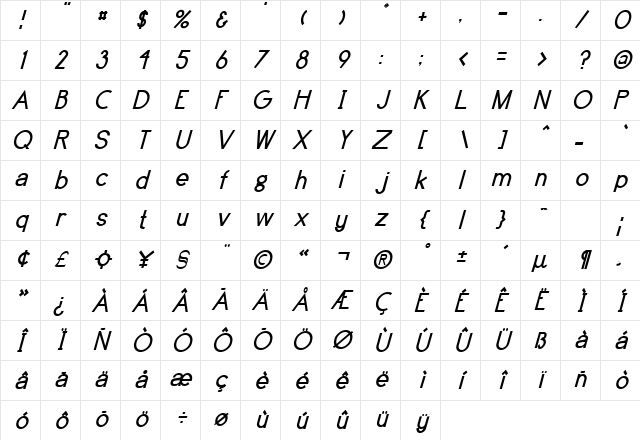
Brassfield Italic
Brassfield Family
Brassfield Italic
Design Context for Brassfield
Brassfield is a composed and adaptable typeface that performs quietly and consistently across a wide range of design contexts. The slanted form adds forward momentum and visual energy.
Pro Tip: Use Brassfield for emphasis, pull quotes, and subheadings where its slanted energy can add rhythm to the layout.